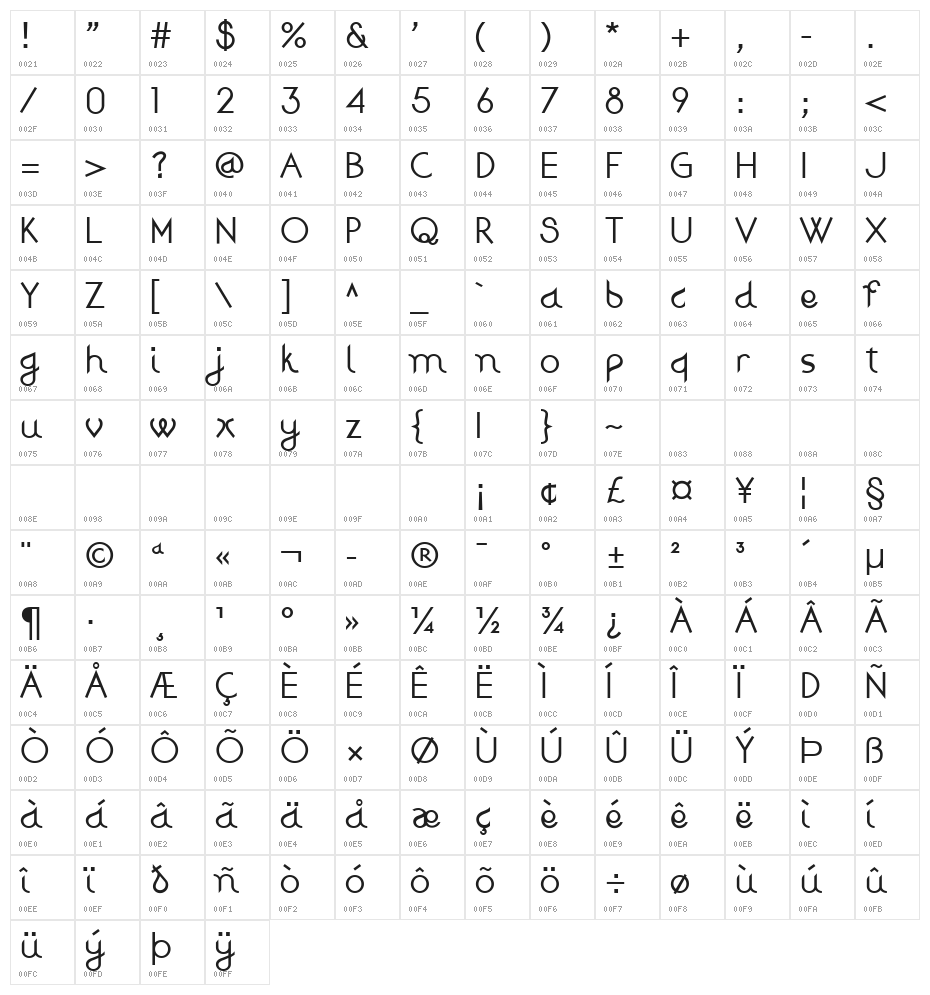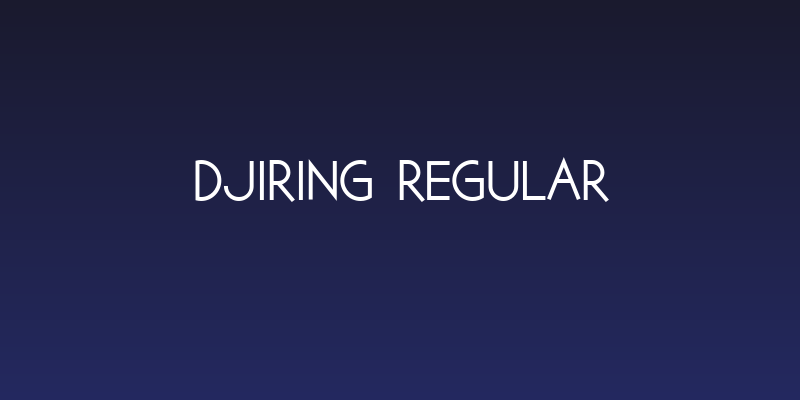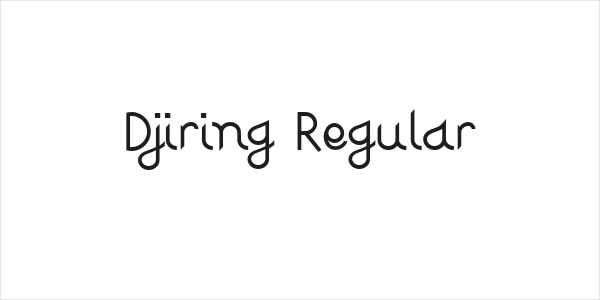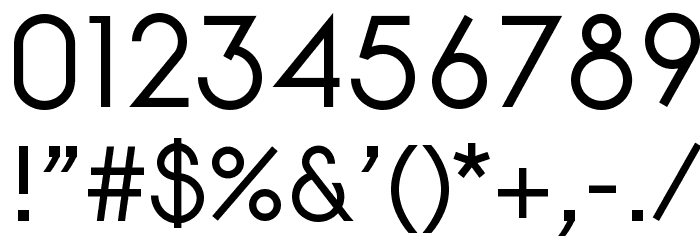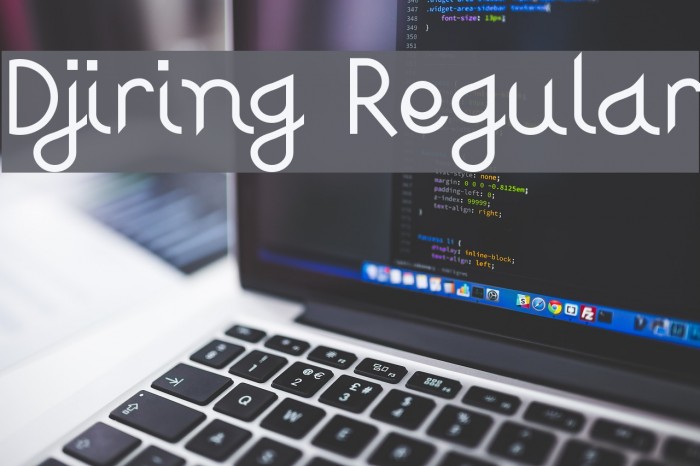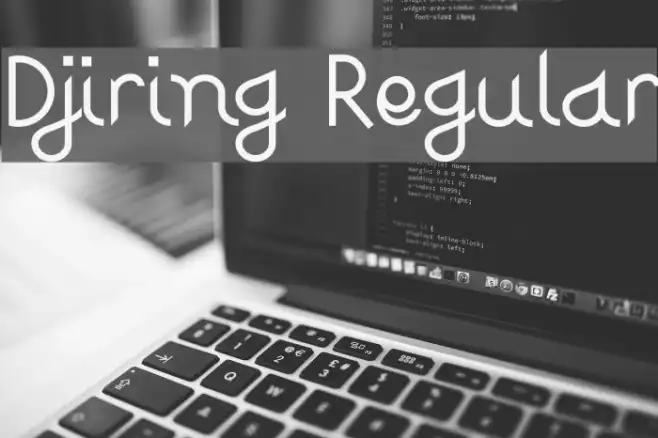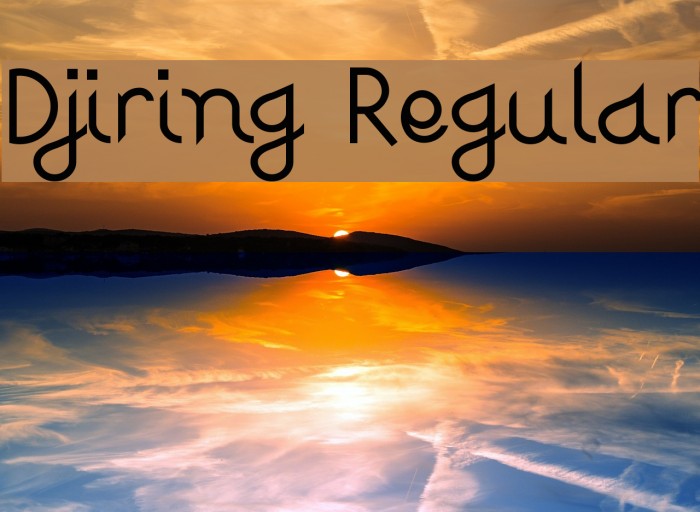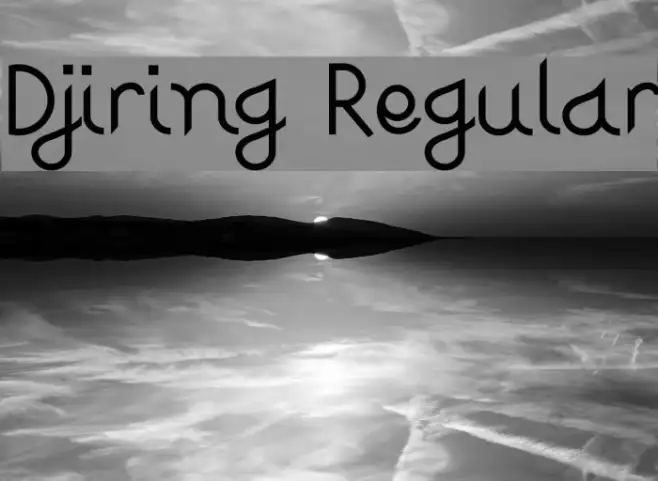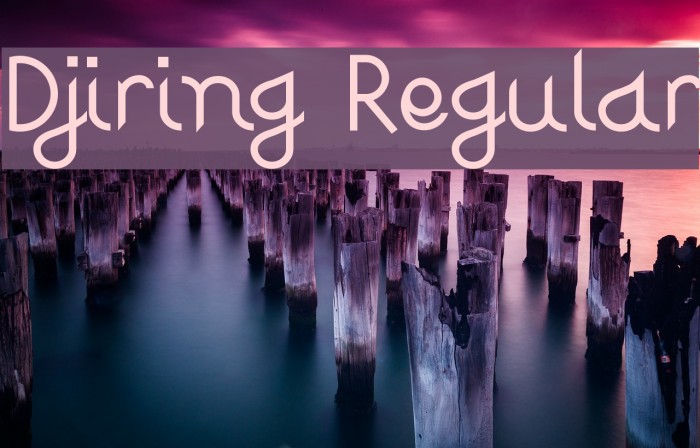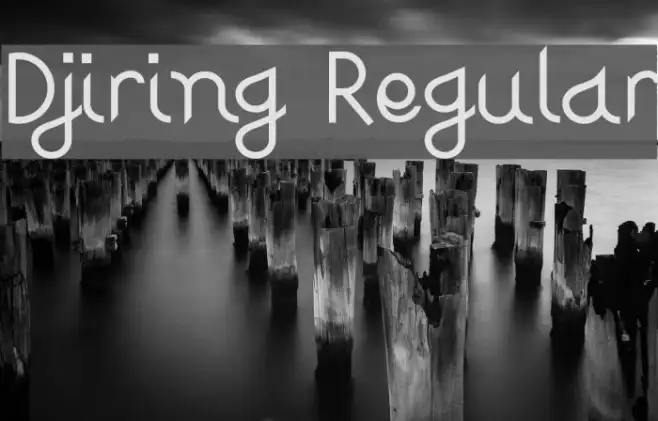
Djiring Regular Font
Djiring Regular Description
This font features a modern and geometric style with clean, sharp lines and a consistent stroke width. The uppercase letters are bold and straightforward, while the lowercase letters introduce a subtle playfulness with their rounded forms and slight curves. The numerals are clear and easy to read, maintaining the geometric aesthetic. Special characters are well-integrated, offering a cohesive look across all glyphs. The overall appearance is sleek and professional, making it suitable for a variety of design applications.
| Proposed Projects | Ideal for branding, advertising, and editorial design projects where a modern and clean aesthetic is desired. |